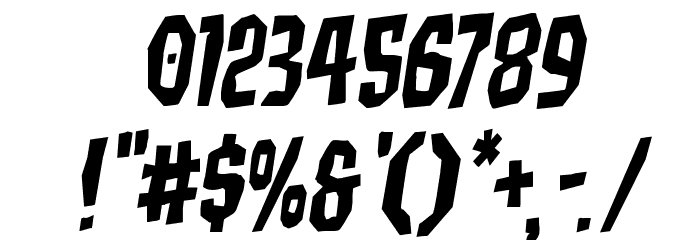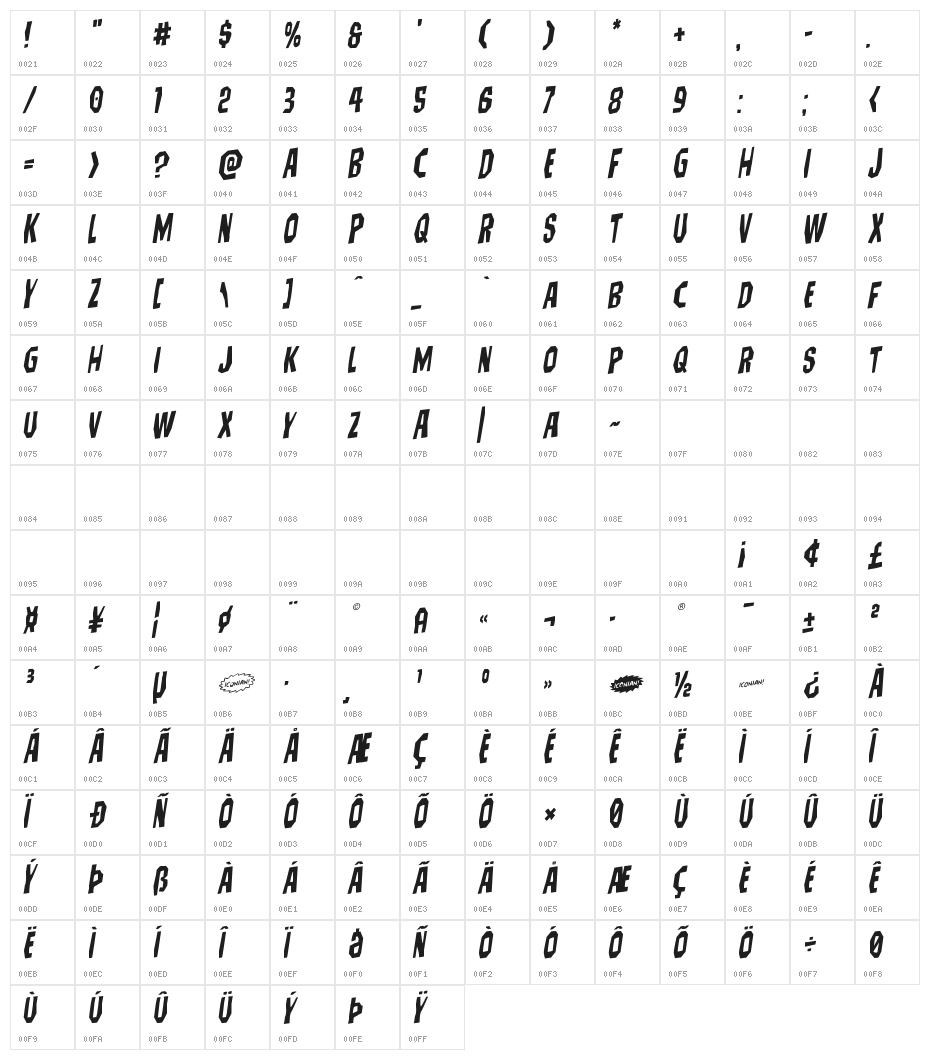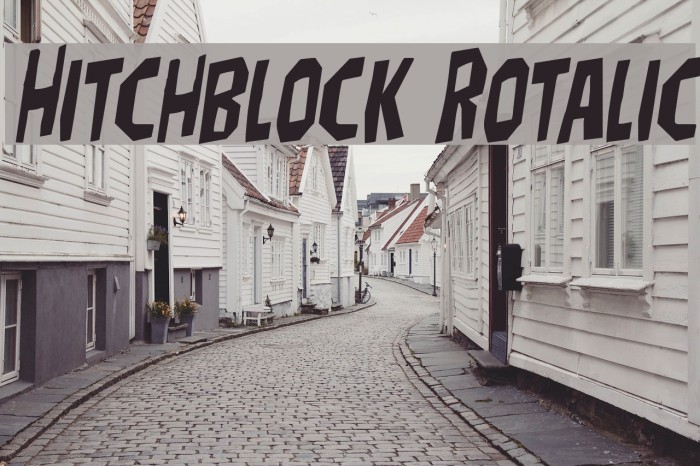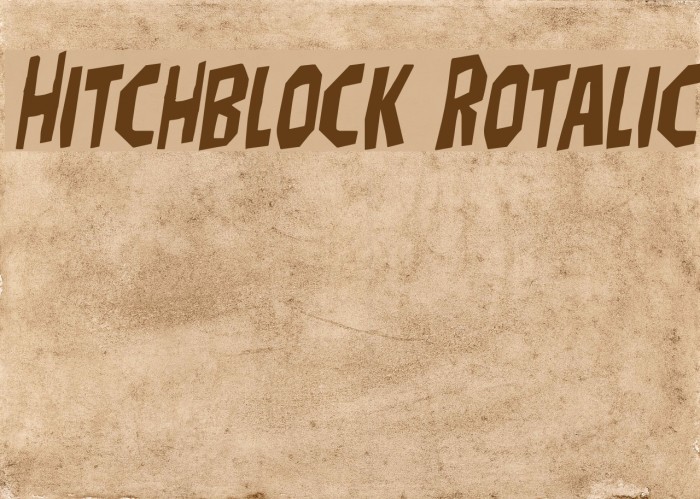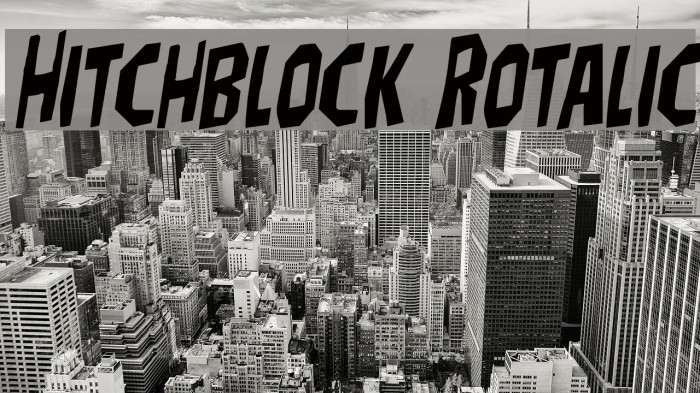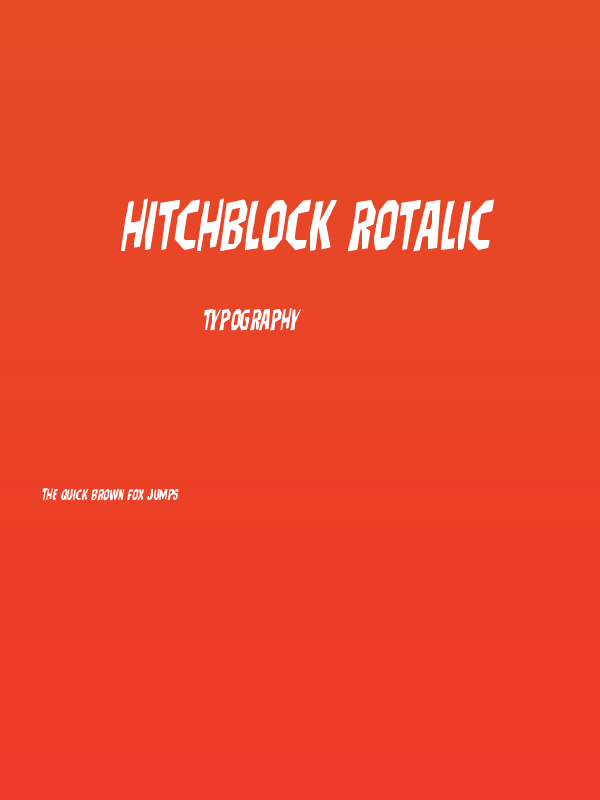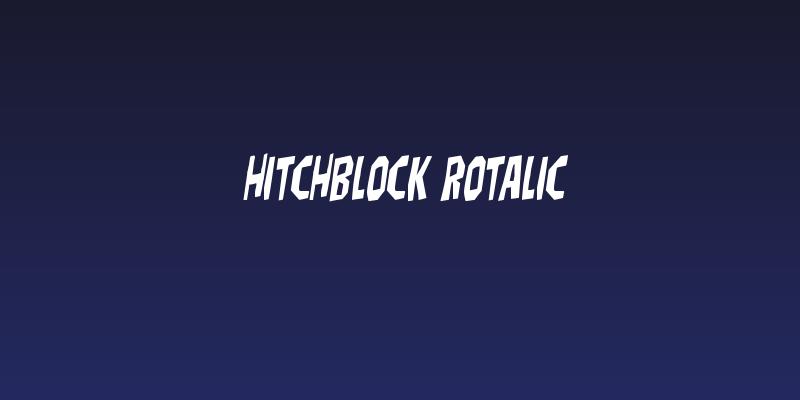
Hitchblock Rotalic Font
Hitchblock Rotalic Description
This font features a bold, angular design with a dynamic, forward-leaning slant that gives it a sense of motion and energy. The characters are sharply cut with a geometric style, offering a modern and edgy appearance. The uppercase and lowercase letters maintain a consistent style, with the same angular cuts and slanted orientation. Numbers and special characters follow the same design principles, ensuring uniformity across all glyphs. The font's boldness and unique style make it stand out, perfect for attention-grabbing designs.